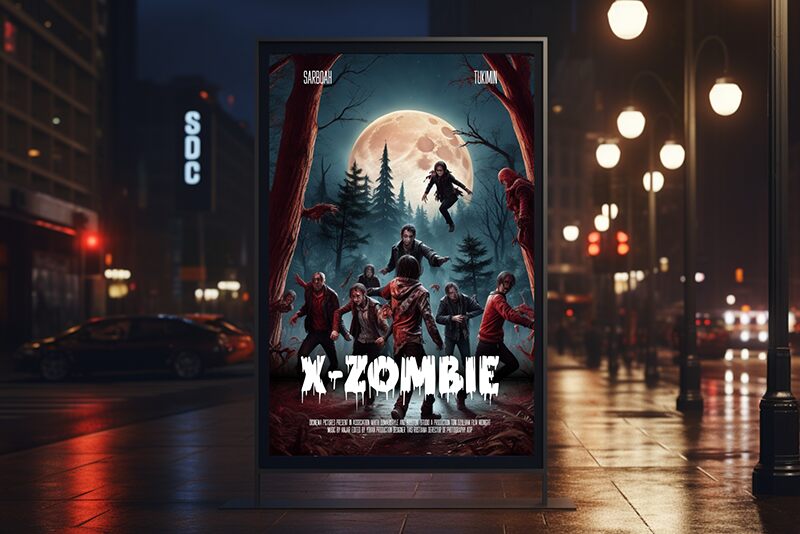
Majestic Hemotype font by Horror Font is a horror-themed free font combining eerie, distressed, and unsettling attributes. The style is fragmented, intense, and dramatic, gracing it with an endless number of creative applications. While readability would be an issue if replacing standard text with this typeface, it does have visual distinct qualities making it particularly indispensable for eye-catching headings and short captions.
The Majestic Hemotype font can be applied in comics, movie posters, book cover designs for thrillers, and music album artwork. It can be used in merchandise and apparel designs. What is more, it is a top choice for websites, mobile apps, video games, and other platforms seeking to incite an exciting experience. It is really up to the user’s imagination and creativity to put this font in the most suitable surrounding.